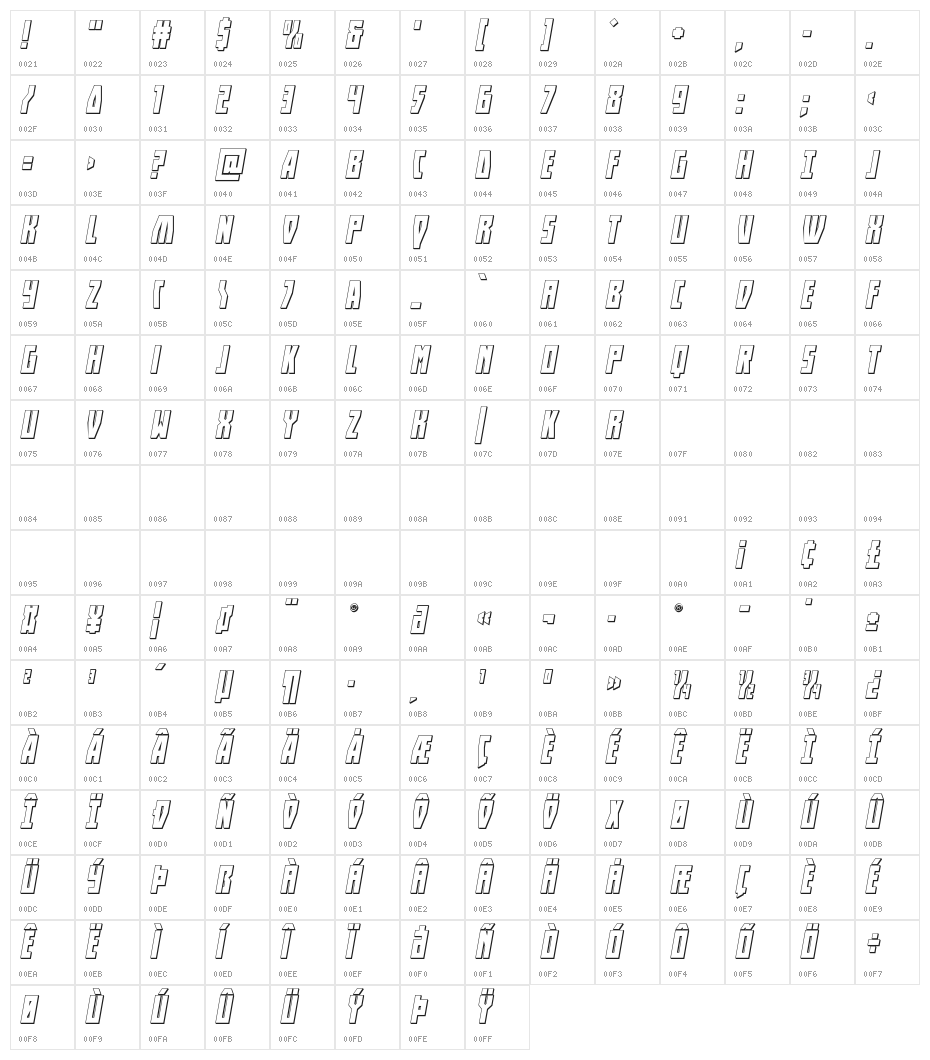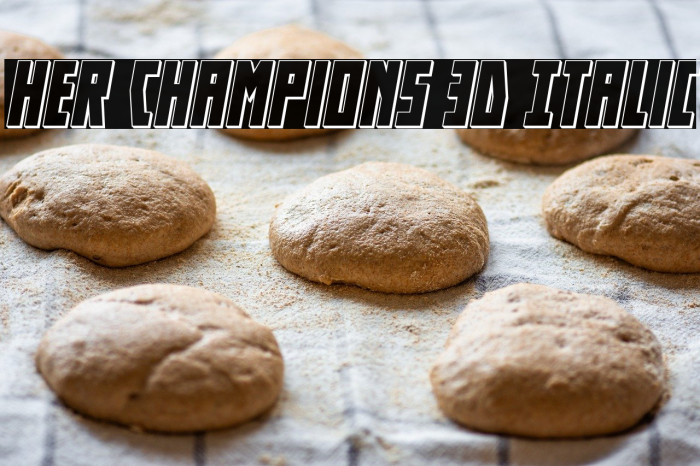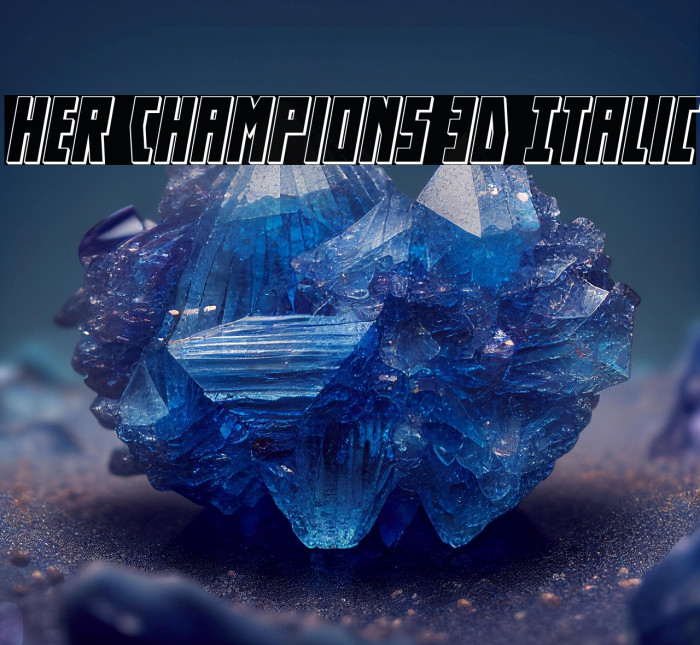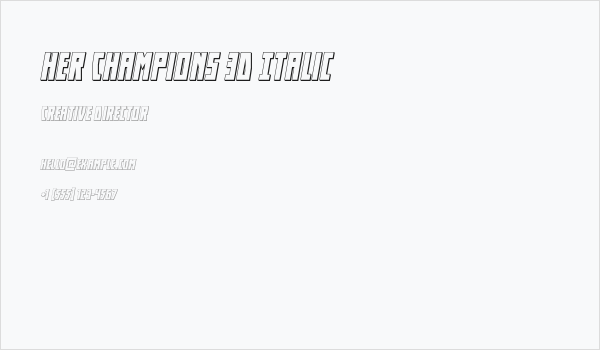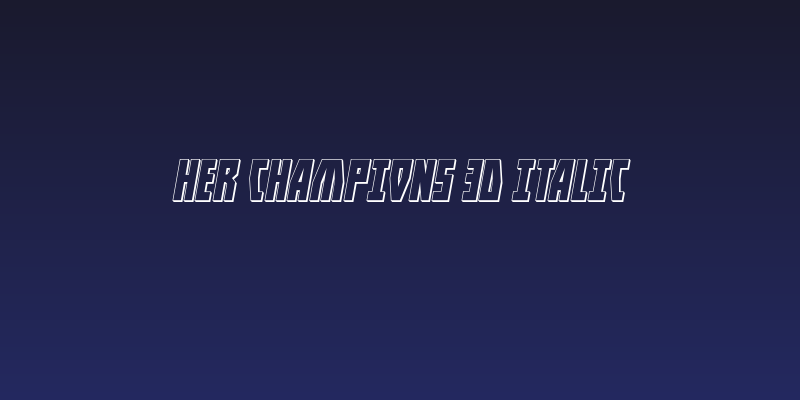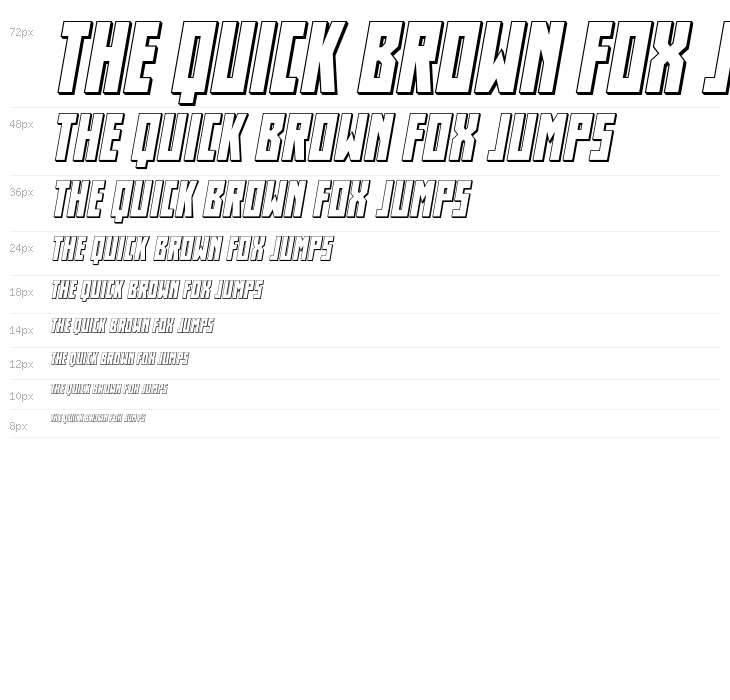
Her Champions 3D Italic Font
This font features a bold, 3D italic style with a strong geometric influence. The characters are outlined, giving them a dynamic and impactful appearance. The angular design and sharp edges contribute to a futuristic and sporty aesthetic. The uppercase and lowercase letters maintain a consistent style, with the numbers and special characters following suit. The font's unique structure makes it stand out, ideal for projects that require a bold statement.
Proposed ProjectsIdeal for sports branding, video game titles, posters, and dynamic logos.